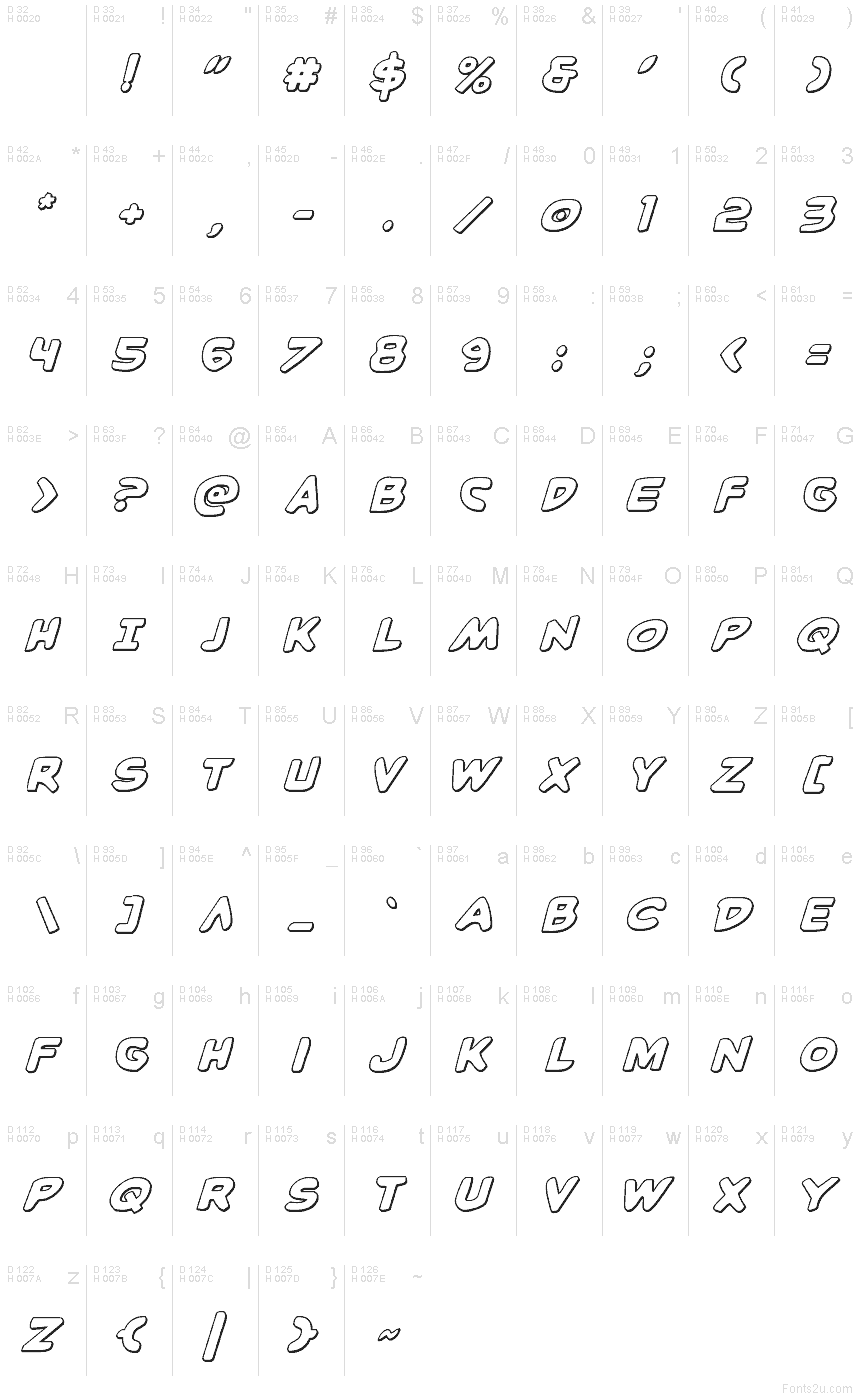
Caped Crusader 3D Italic
Caped Crusader 3D Italic font by Iconian Fonts is a bold display typeface from the Caped Crusader family. An italic comic style brings fun and playful vibes into each glyph. Elevate your text with sharp angles and creative elements while maintaining legibility and enhancing visual appeal.